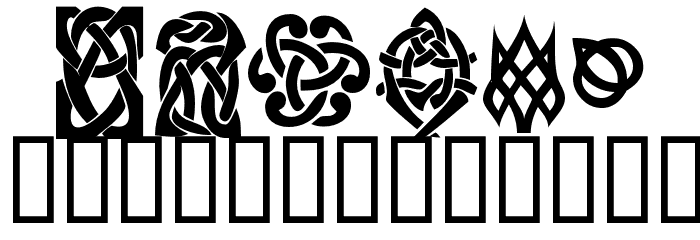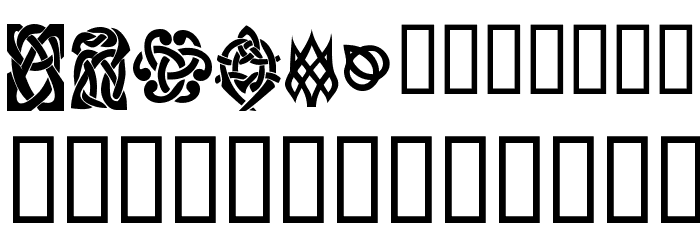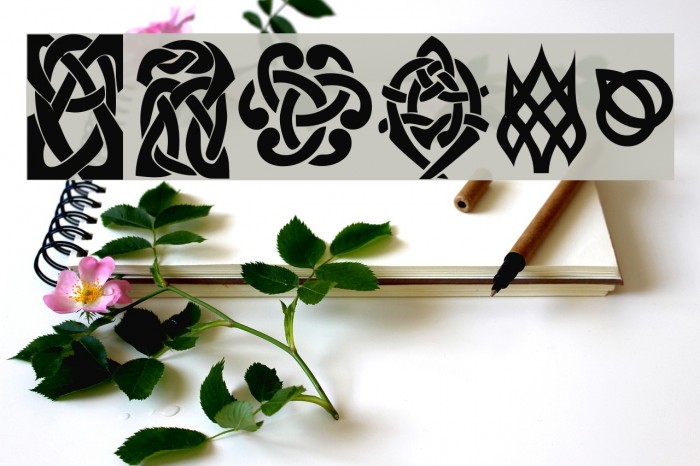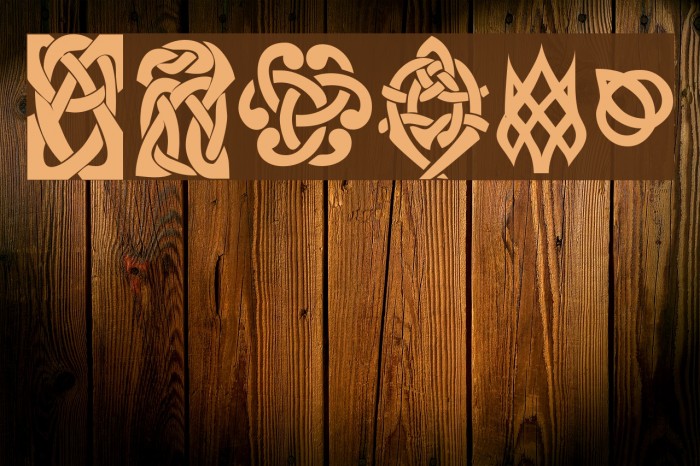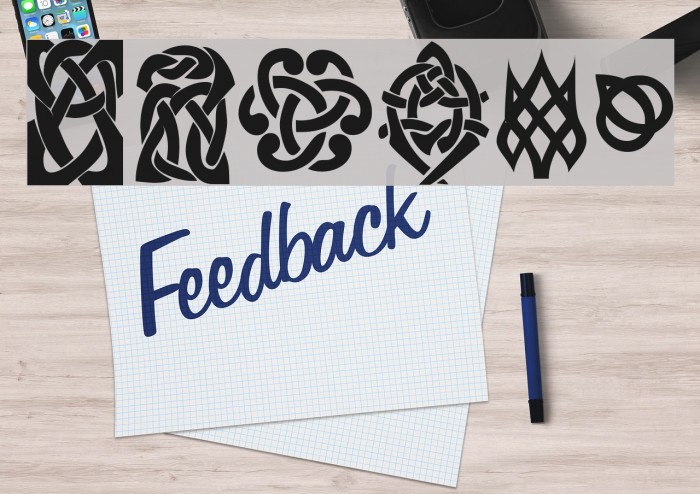
KR Keltic Six Font
This font is a decorative display style that features intricate Celtic knot designs for each character. The characters are highly stylized, with each letter and symbol intricately woven into a unique knot pattern. The bold and complex designs make it ideal for artistic and ornamental purposes. The font's elaborate style captures the essence of traditional Celtic art, characterized by interlacing patterns and symmetrical forms. It is not suitable for body text due to its complexity but can be effectively used for creating eye-catching headlines, logos, or themed event invitations. The font's unique aesthetic makes it a standout choice for projects that require a touch of historical or cultural flair.
A decorative font with intricate Celtic knot designs for each character.
- Proposed Projects: Ideal for themed event invitations, logos, and decorative headlines.